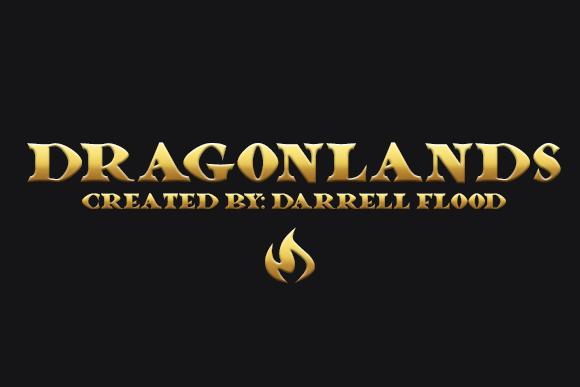
Dragonlands Font
About the Dragonlands Font
We are excited to introduce Dragonlands Font, a must-have typeface for any serious designer. A fantasy font with weighty archaic stylization. Perfect for dungeon adventures!
Font created by Darrell Flood.
Dragonlands excels in headlines, titles, and short impactful phrases within fantasy-themed projects, logos, posters, and packaging. Its weighty forms command attention, ideal for evoking a sense of epic adventure or dark fantasy. However, its ornate details and considerable weight make it unsuitable for body text or UI elements where readability is paramount. Avoid using it for long paragraphs or small sizes.
The font’s core personality is bold and dramatic, with a touch of archaic elegance. Its strong verticality lends itself to powerful statements.
To create visual harmony, pair Dragonlands with a clean sans-serif like Montserrat for body text or a simple serif like Lora for a touch of classic contrast. For a more whimsical feel, consider pairing it with a playful script font. Avoid pairing it with other overly decorative or highly stylized fonts to prevent visual clutter.
Dragonlands Font Example